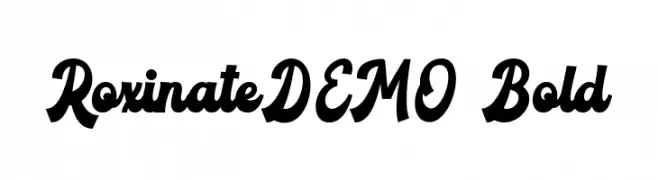
( Ferdiansyah - creativemarket.com/ijemrockart )
A bold, dynamic script font with sweeping curves and high contrast, ideal for vintage or retro designs.
( Ferry Septian - creativemarket.com/uncurve )
An elegant and flowing script font with intricate loops and swirls.
( Fizzetica - Abdul Hapiz Hilman - sellfy.com/fizzetica.co )
A decorative font with intricate, ornamental uppercase letters and streamlined lowercase characters.
( Halim Antoni - fontbundles.net/halimstudio )
An elegant script font with flowing, interconnected letters and high contrast strokes.
A bold, futuristic font with horizontal stripes and geometric shapes.
A futuristic italic font with a striped, dynamic design.
A futuristic, gradient-lined font with bold, geometric characters.
A bold, futuristic font with geometric shapes and a semi-italic slant.
A bold, geometric font with a futuristic, industrial style and hollow outline.
A futuristic 3D italic font with outlined, angular characters for a modern look.